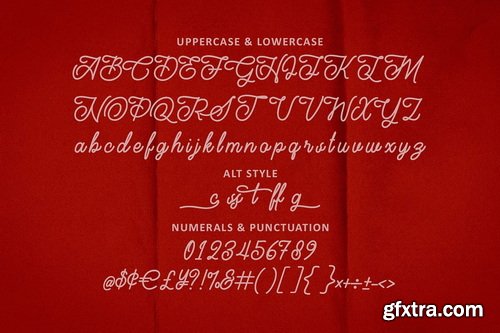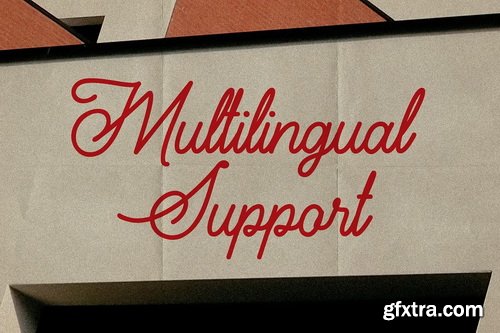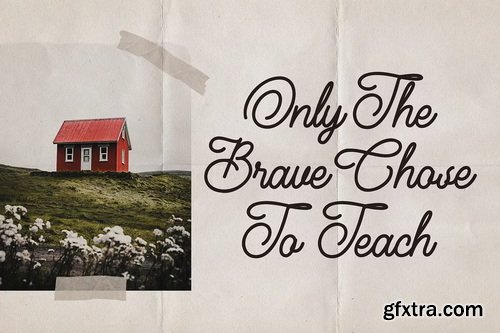
CreativeMarket - Headtrec Monoline Vintage Font
- Headtrec is an unique monoline retro script font. With regular contrast stroke, fun character with a bit of ligatures and alternates. To give you an extra creative work. Headtrec font support multilingual more than 100+ language. This font is good for logo design, Social media, Movie Titles, Books Titles, a short text even a long text letter and good for your secondary text font with sans or serif. Make a stunning work with Headtrec font.